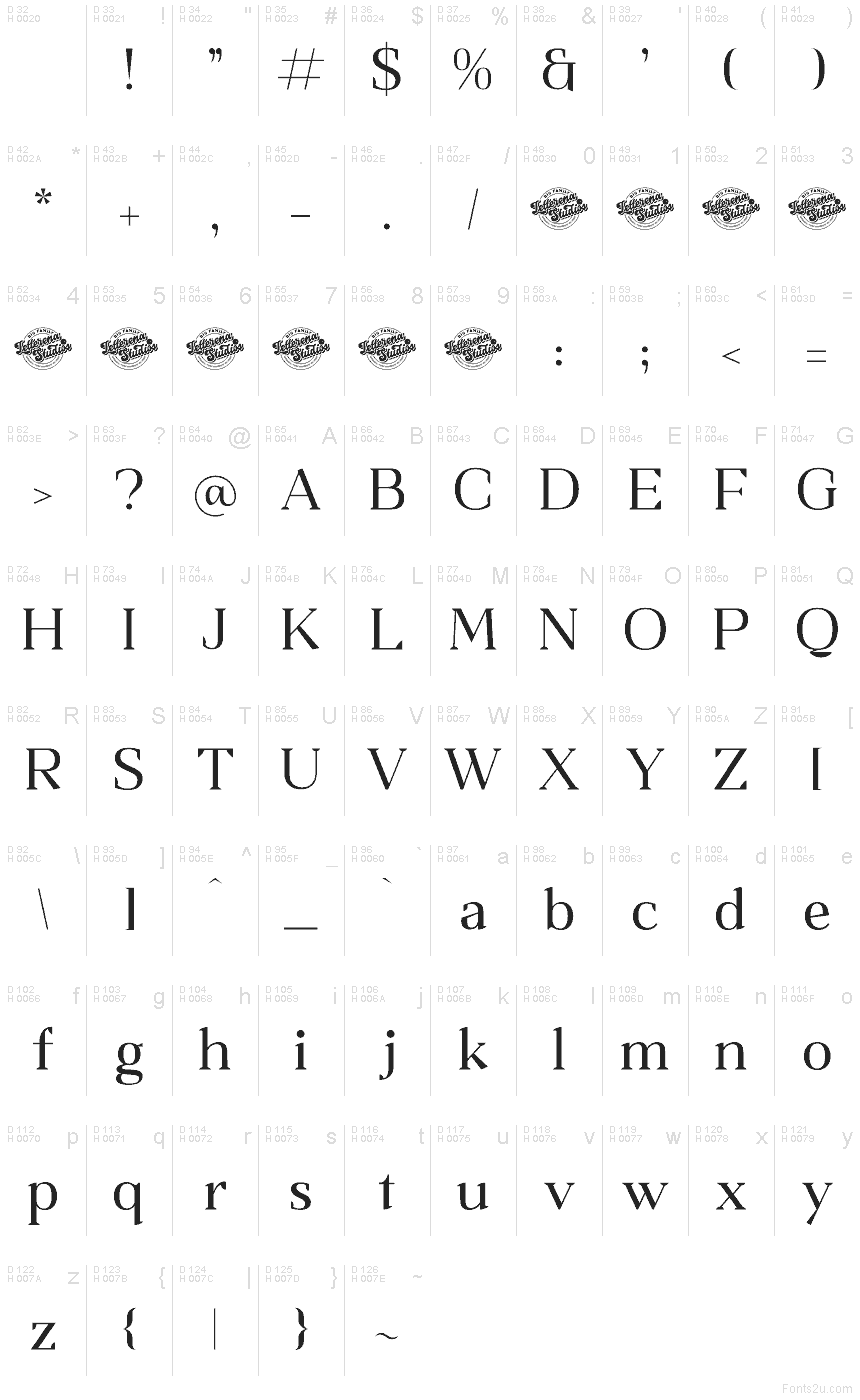
Mefidows DEMO VERSION
Mefidows font by Letterena Studios is a free serif typeface that brings a refined, editorial edge to your typography. Its slender proportions, sharp serifs, and cool, confident stroke contrast echo high-end magazine mastheads and luxury packaging. Letters feel tall and slightly compressed, giving headlines a poised, runway-ready stance while still staying clean and readable at larger sizes.
Using Mefidows, you can give instant polish to fashion branding, perfume or beauty packaging, lookbooks, posters, invitations, and sleek social media graphics. This free font shines when you let it breathe—set it large with generous tracking and pair it with a simple sans serif for body text to keep the overall system crisp and contemporary.